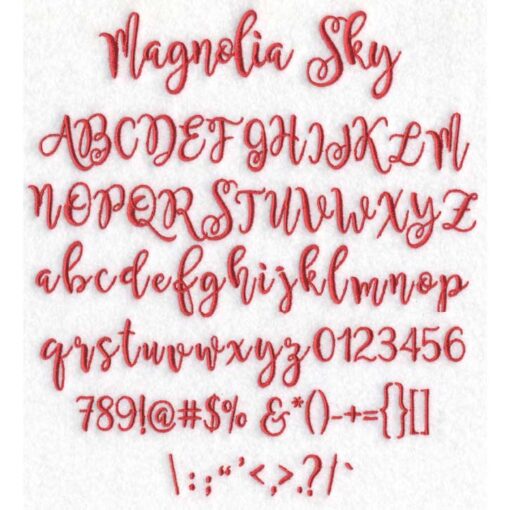
Resizable casual upright calligraphic handwritten script machine embroidery font. Includes uppercase, lowercase, numbers and available punctuation.This is an object-based BX keyboard alphabet file and requires Embrilliance Essentials.
Manually digitized (not auto-punched) by Lindee G Embroidery using high-end professional software.